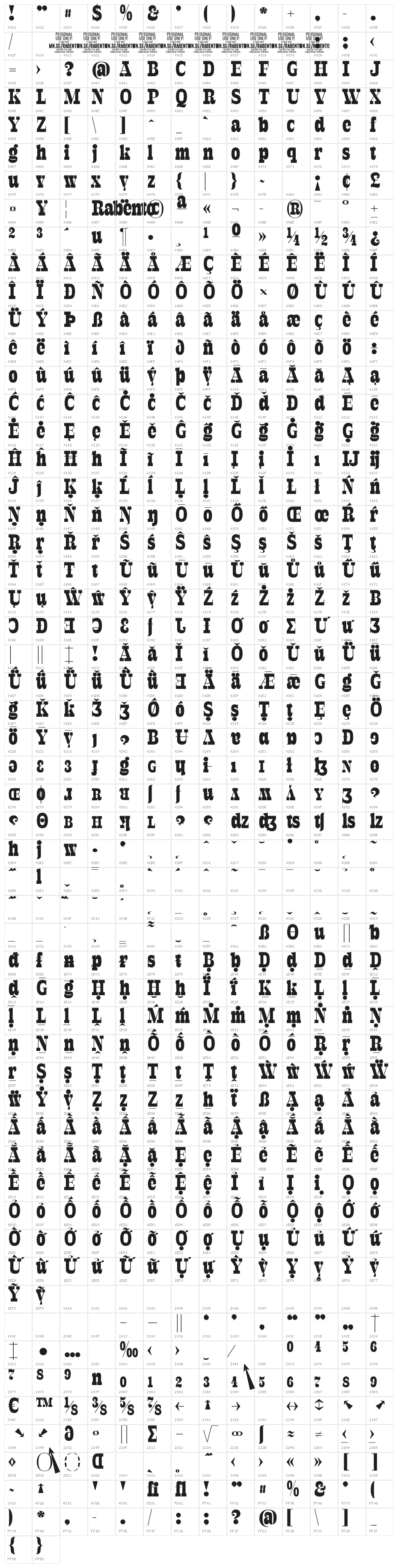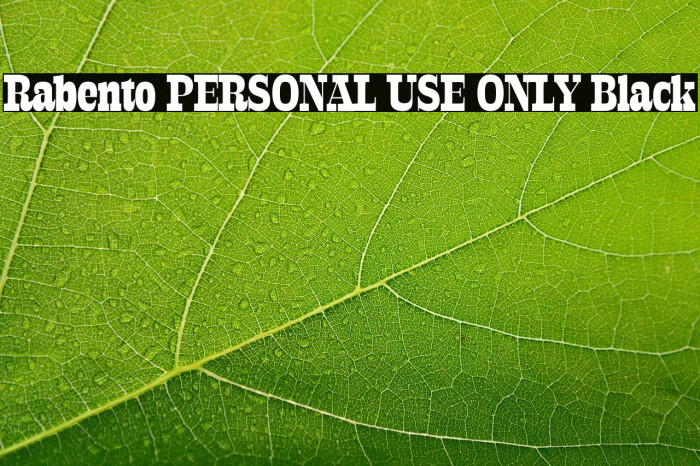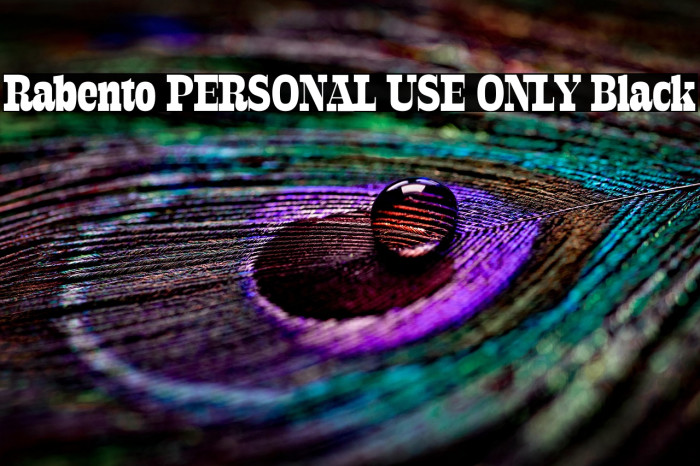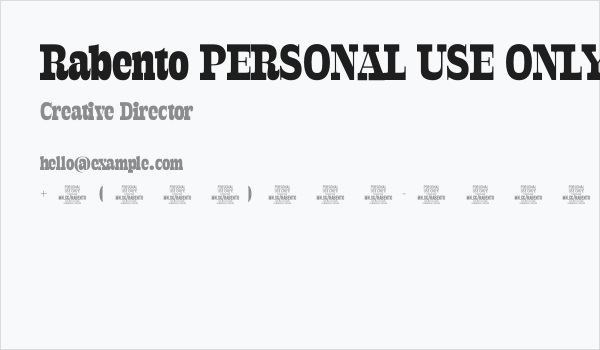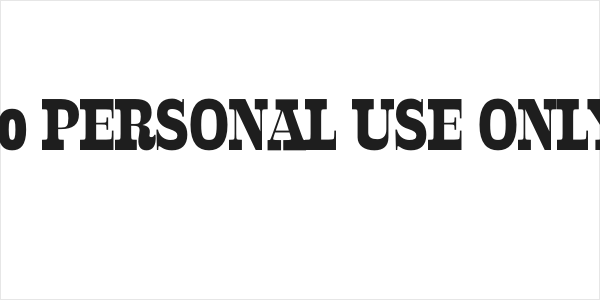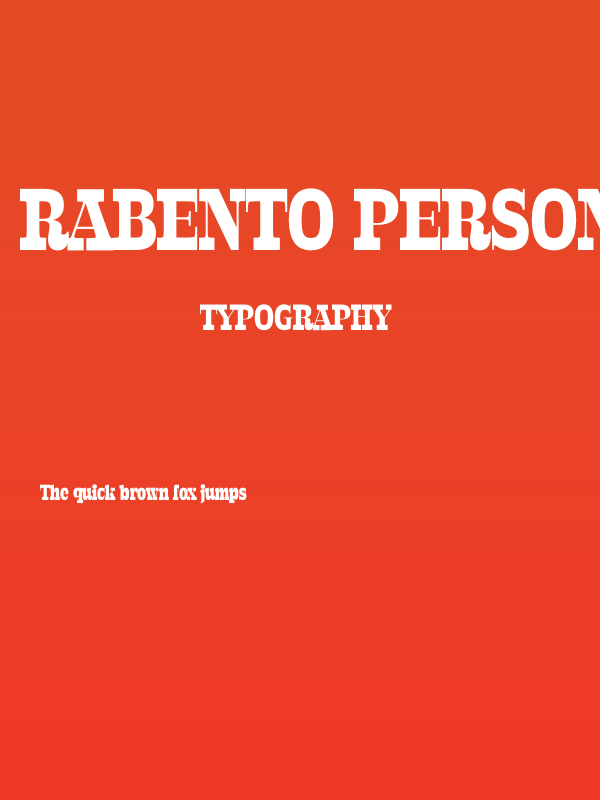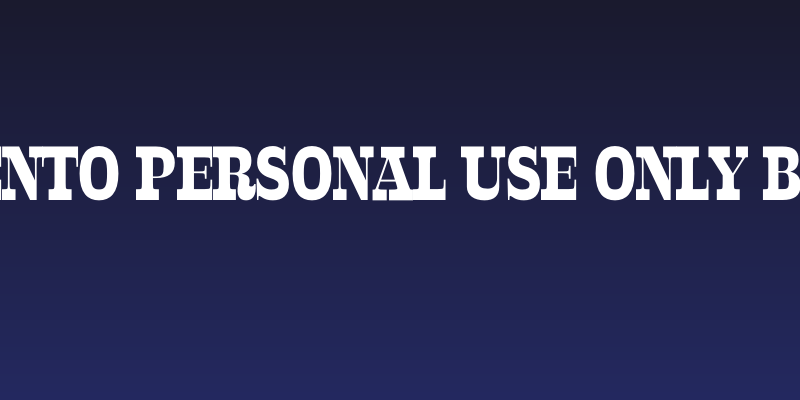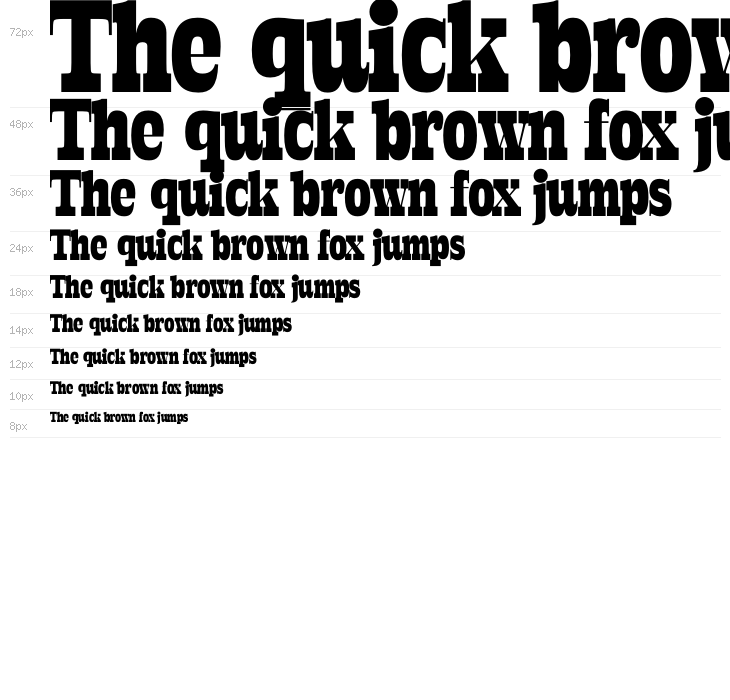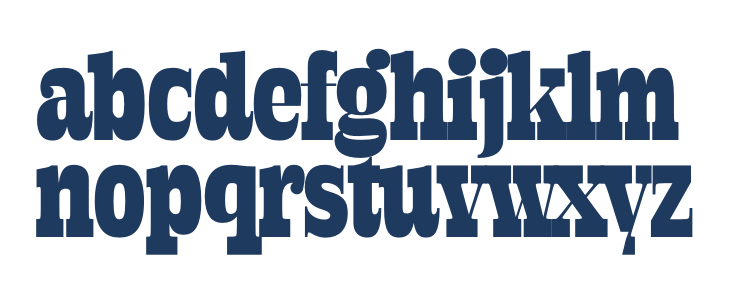
Rabento PERSONAL USE ONLY Black Font
Rabento PERSONAL USE ONLY Black Description
This font exhibits a bold and striking presence, characterized by its thick, slab serif style. The uppercase letters are robust and commanding, with a strong emphasis on vertical and horizontal strokes. The lowercase letters maintain a consistent weight, providing a harmonious balance with the uppercase. The numerals and special characters follow the same bold aesthetic, ensuring uniformity across all glyphs. The font's design is reminiscent of vintage poster typography, making it ideal for creating a dramatic impact. Its high contrast in stroke thickness enhances readability while adding a touch of elegance.
| Proposed Projects | Ideal for posters, headlines, branding, and any project requiring a bold, vintage look. |